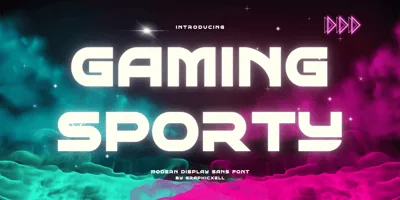
Gaming Sporty Font
The Gaming Sporty Font excels in various design applications including esports team branding, competitive gaming tournament marketing, athletic gaming chair packaging, sporty gaming peripheral identities, esports arena signage, gaming apparel designs, competitive streaming overlays, gaming fitness app communications, sports gaming league promotions, and dynamic competitive projects that demand gaming athleticism and sporty sophistication.
What makes the Gaming Sporty Font exciting is its perfect fusion of gaming culture and athletic energy through letterforms that capture the essence of competitive esports and the physical intensity of serious gaming performance. This typeface demonstrates exceptional dynamism through carefully crafted characters that suggest the quick reflexes of professional gamers, the competitive spirit of esports tournaments, and the athletic dedication that makes competitive gaming so physically and mentally demanding. The font's gaming personality makes it perfect for esports organizations and gaming brands seeking to communicate competitive authenticity, athletic gaming performance, and the kind of sporty energy that creates legendary gaming experiences through typography that literally levels up with competitive intensity.
The Gaming Sporty Font family typically includes competitive weight variations that enhance the gaming aesthetic, featuring dynamic styling options and extended character sets optimized for esports communications and gaming applications. These family options often include gaming-inspired alternates, esports symbols, and competitive decorative elements that provide designers with comprehensive tools for creating authentically gaming typography that celebrates esports culture while maintaining contemporary design appeal and competitive credibility.
Esports professionals and gaming lifestyle brands consistently choose Gaming Sporty Font for projects requiring typography that communicates gaming authenticity and competitive sophistication. This typeface delivers exceptional performance in esports marketing, gaming branding, and competitive communications where establishing credibility and creating high-energy gaming atmosphere is essential for gamer engagement. The font's sporty character makes it particularly effective for tournament and streaming applications. Download Gaming Sporty Font today to access this competitively dynamic typeface that transforms gaming communications with its sporty elegance and esports sophistication, creating compelling competitive experiences that honor the magnificent athleticism of professional gaming while celebrating the intense dedication that defines authentic esports culture and competitive gaming excellence.